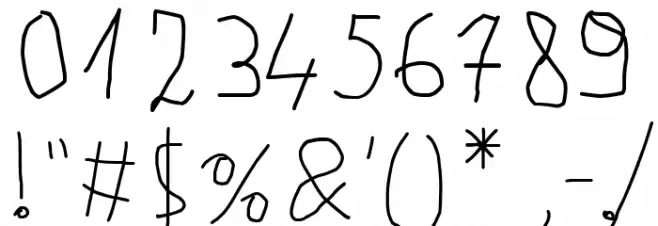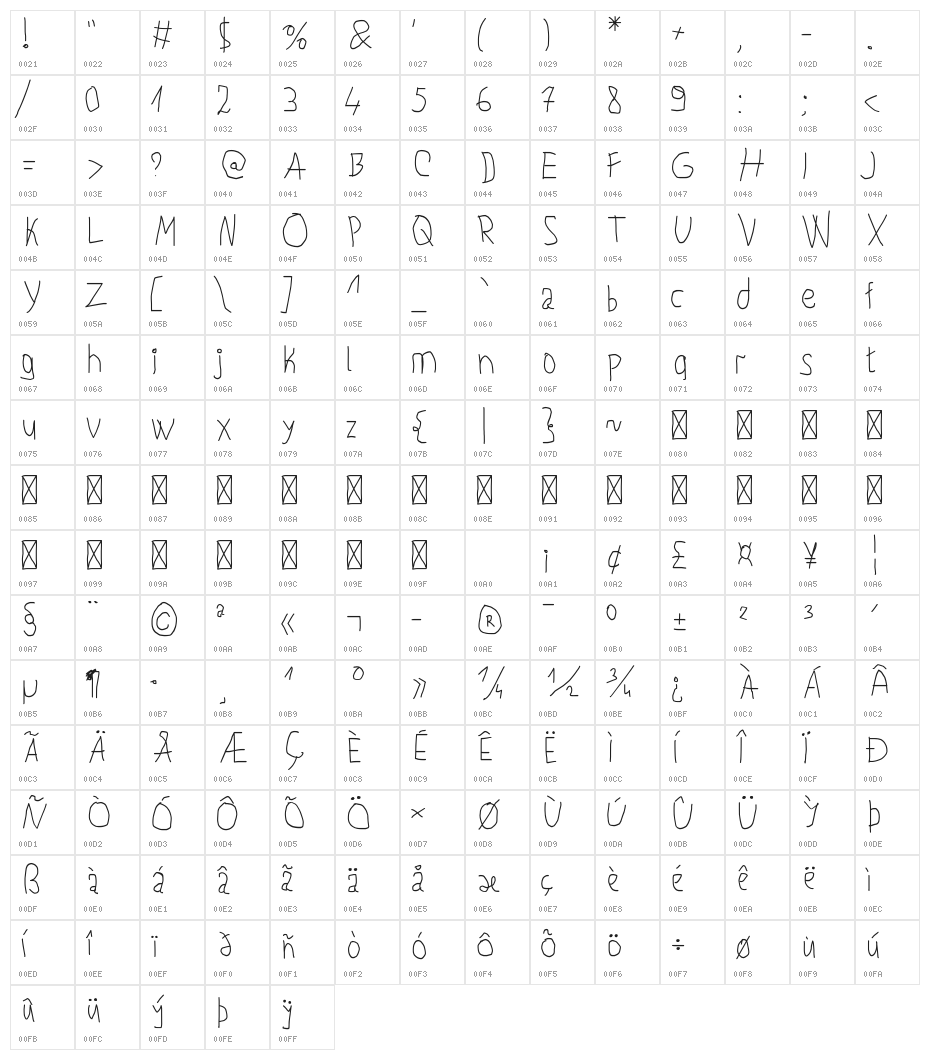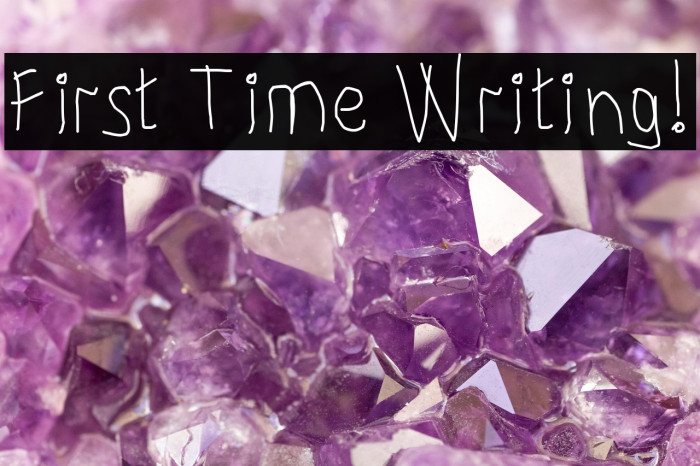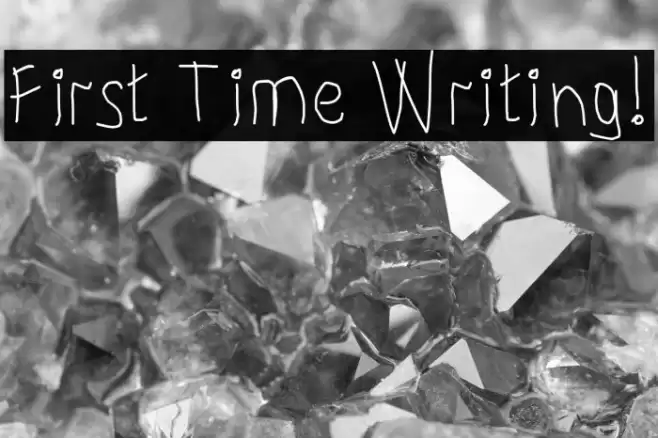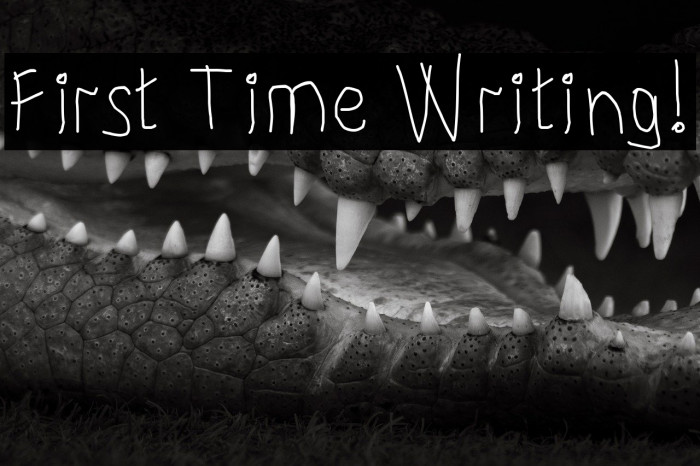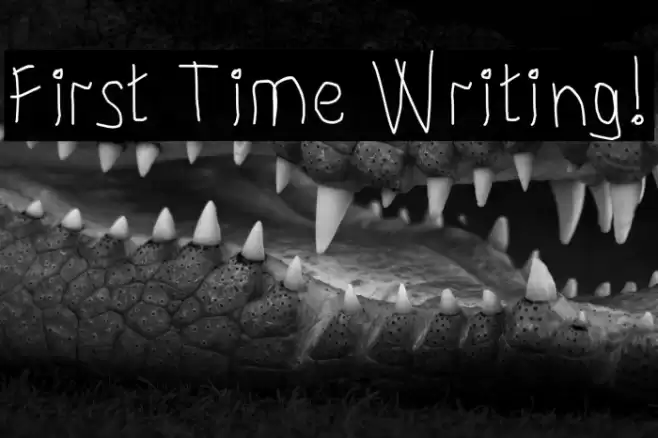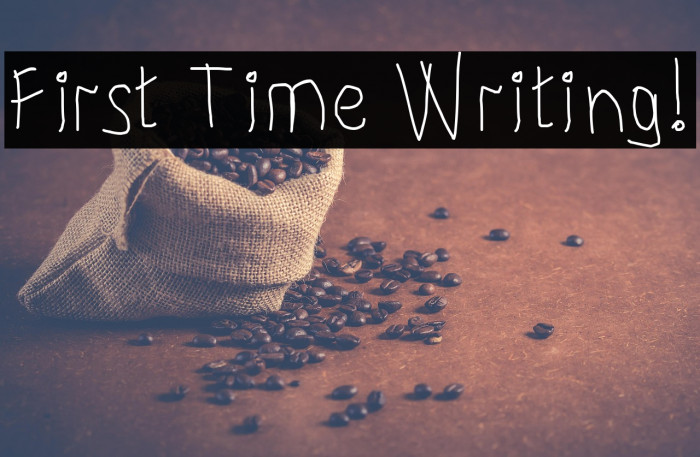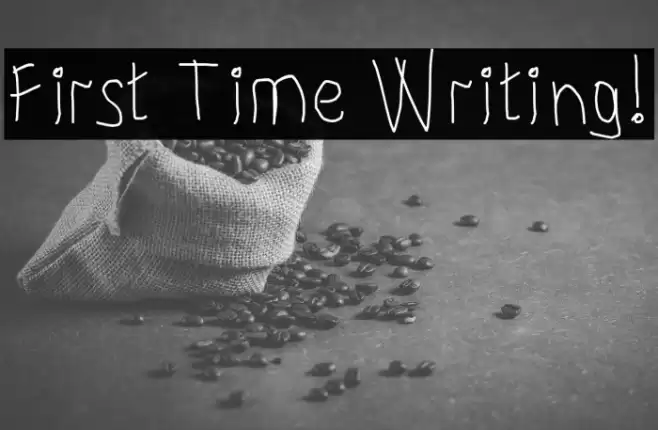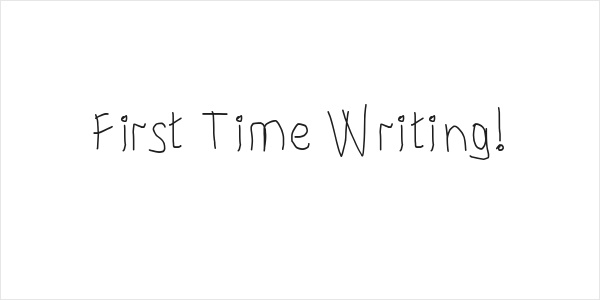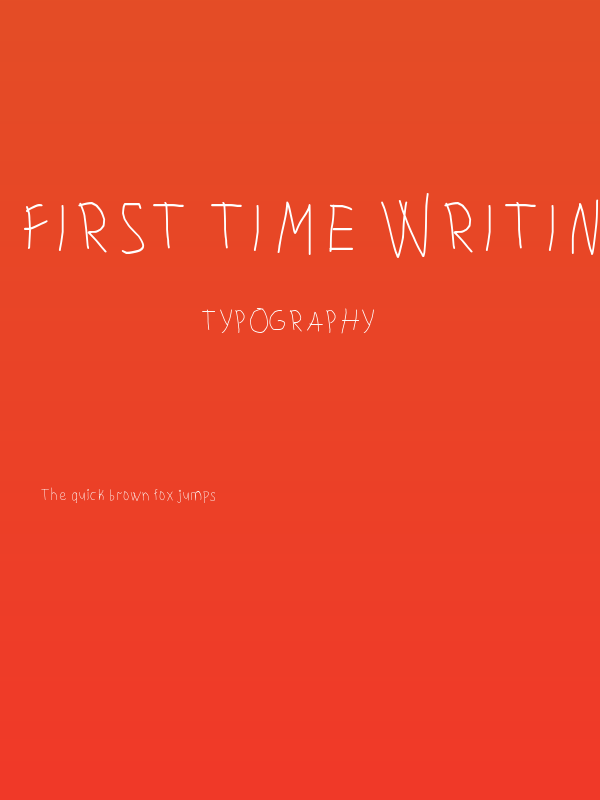
First Time Writing! Font
First Time Writing! Description
This font embodies a playful and informal handwritten style, reminiscent of a child's first attempt at writing. The characters are uneven and slightly irregular, adding a whimsical and personal touch. The strokes are thin and vary slightly in thickness, giving a sense of authenticity and spontaneity. The uppercase letters are tall and narrow, while the lowercase letters maintain a consistent height, creating a harmonious balance. Numbers and special characters follow the same playful design, making the font versatile for creative projects.
| Overall Style | Playful, Informal |
| Proposed Projects | Ideal for children's books, educational materials, playful branding, and personal projects that require a touch of whimsy. |